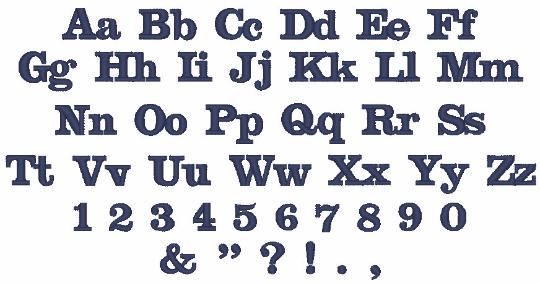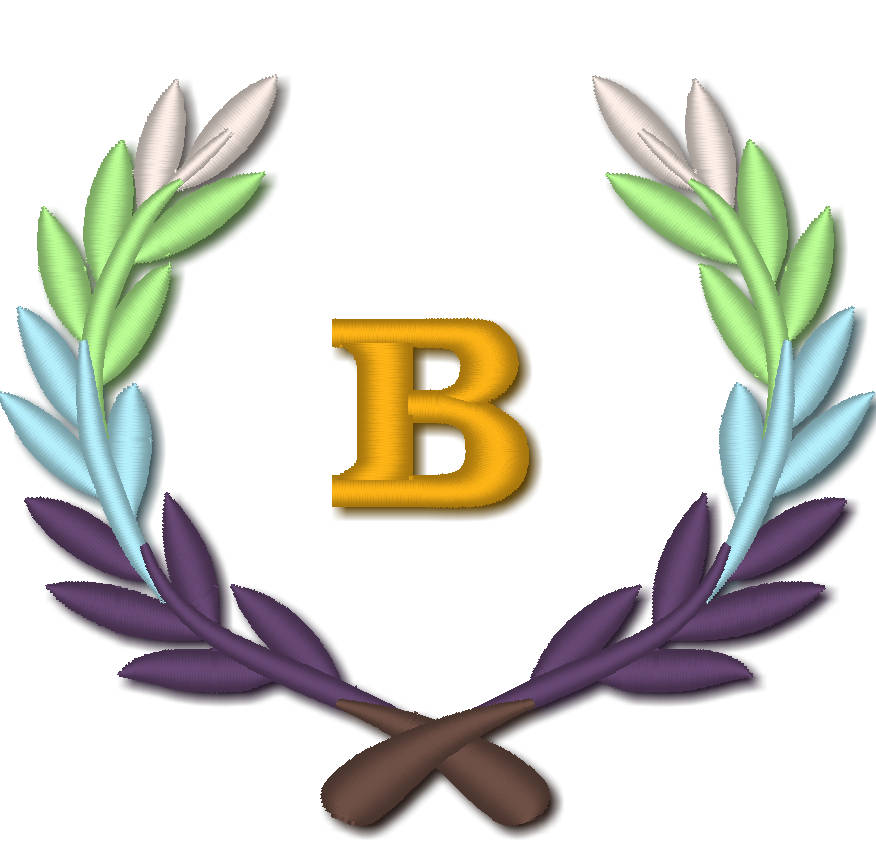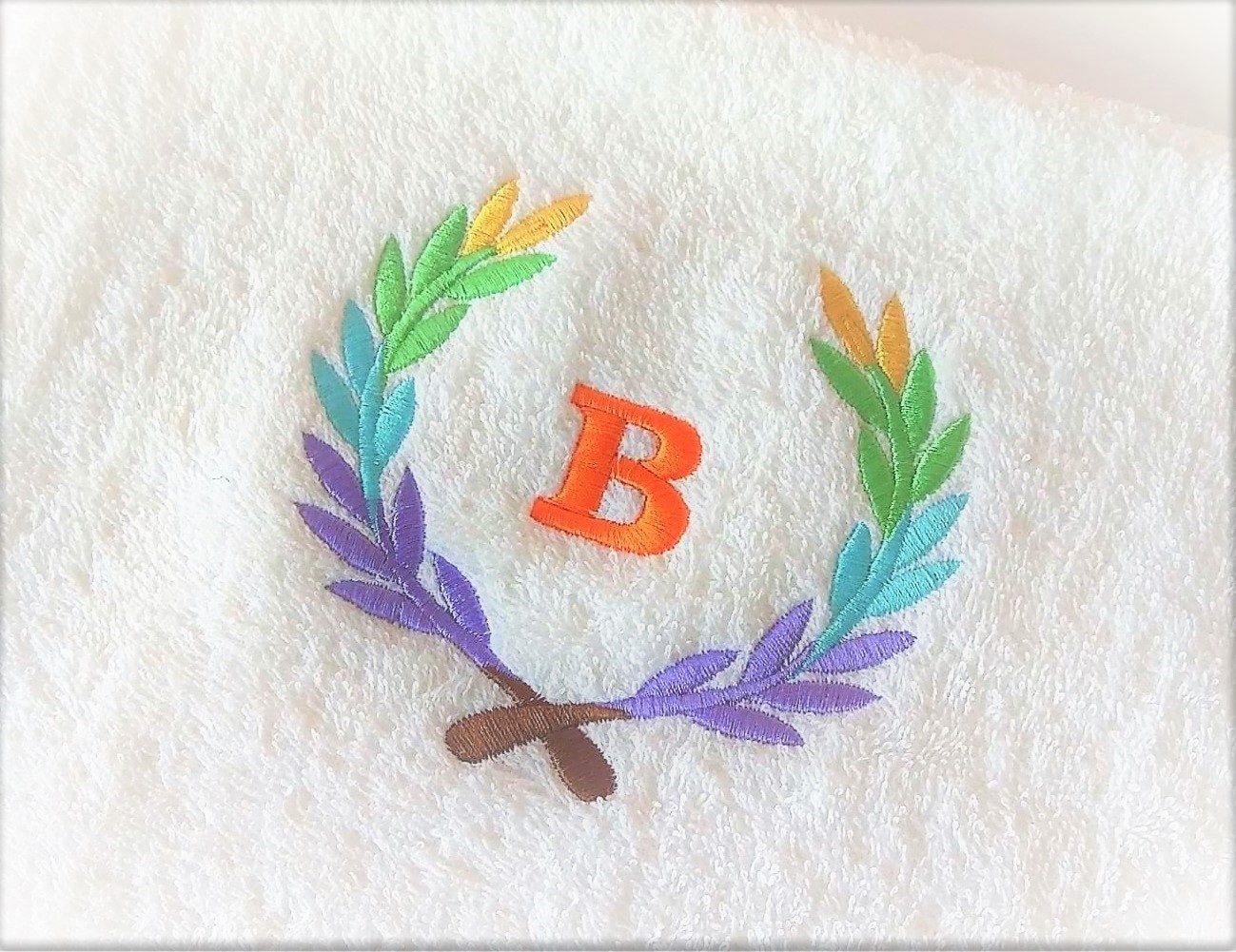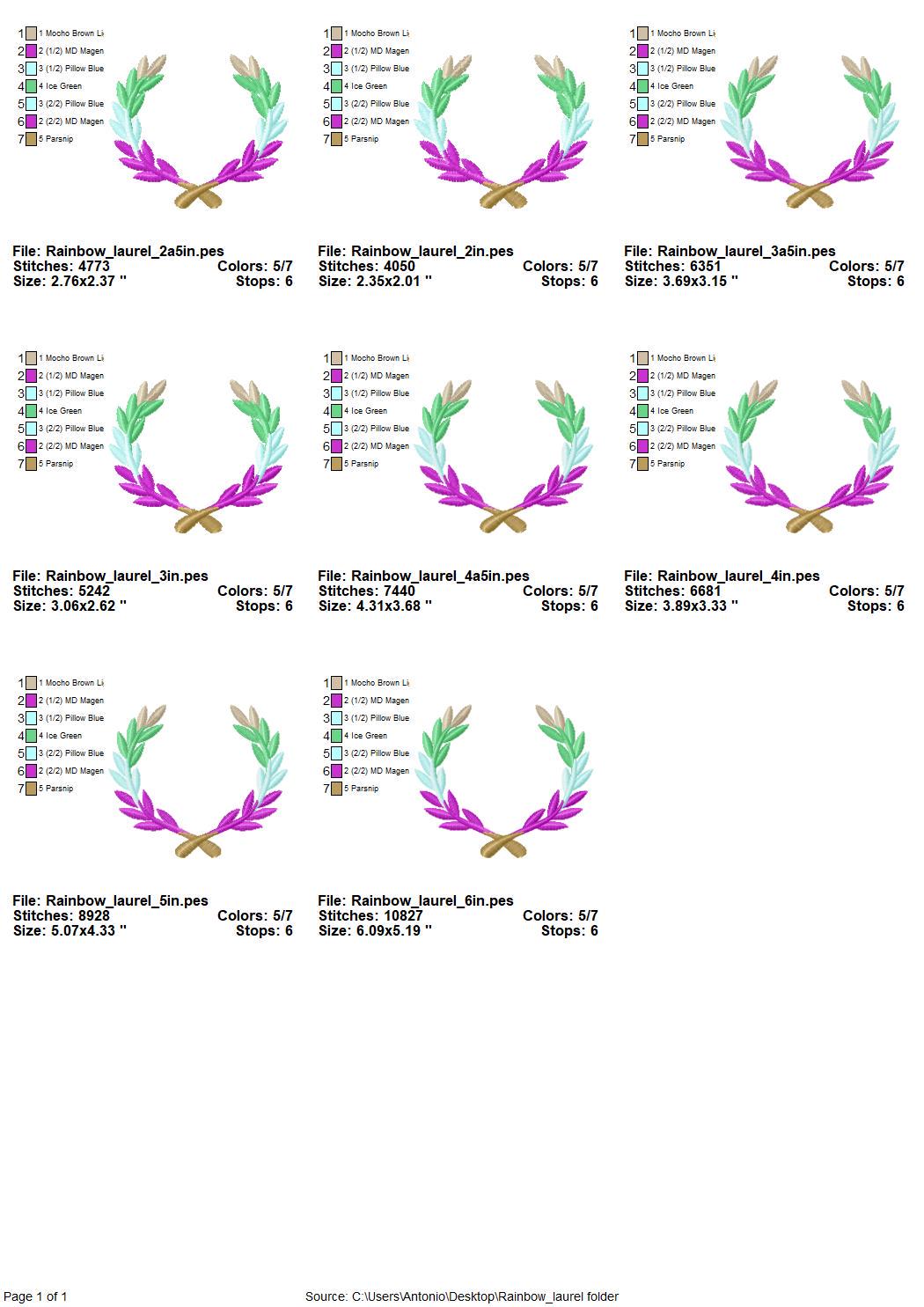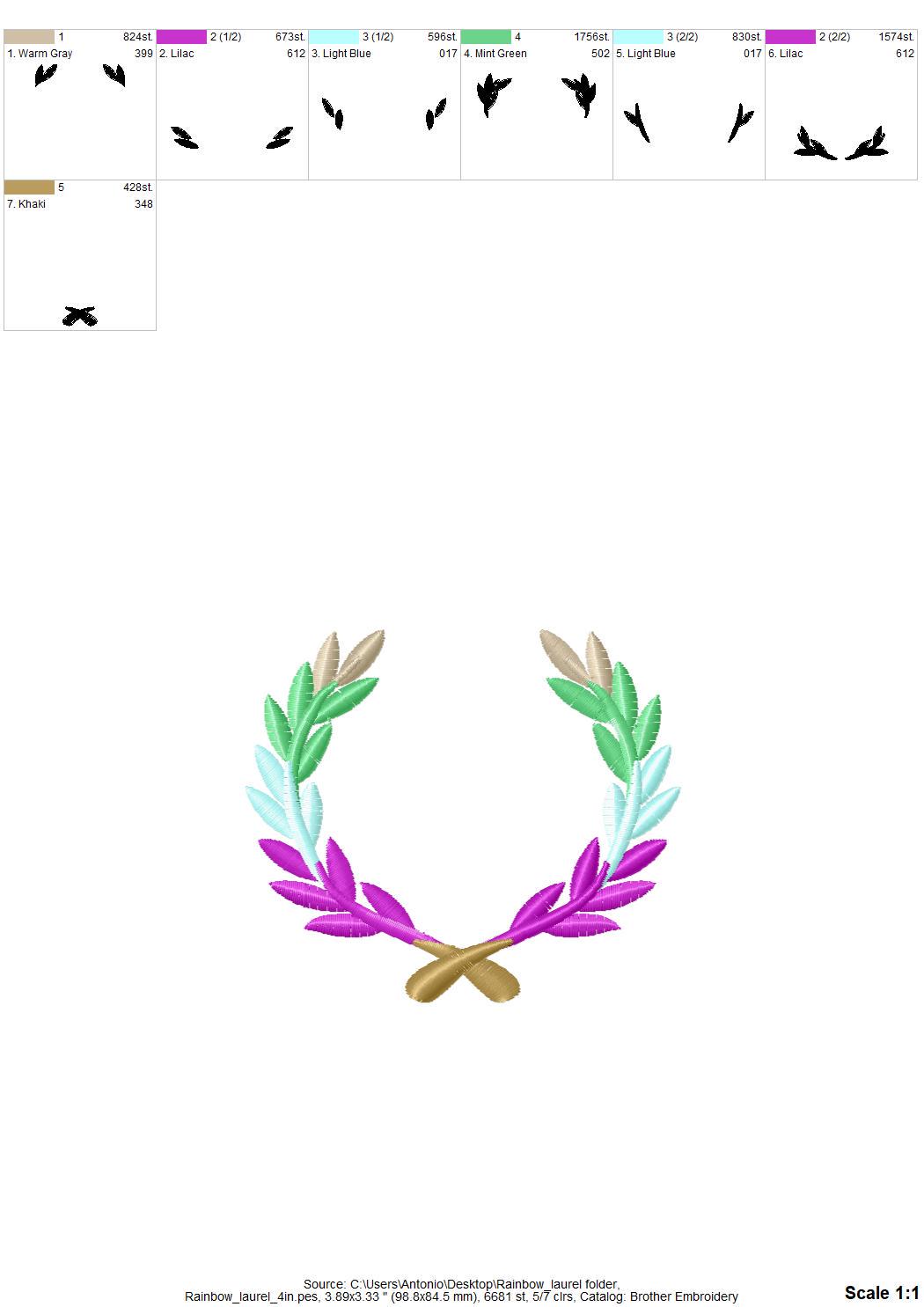
Or click to open the linkA rainbow laurel leaf wreath with a mini font for circle monograms, names and initials on kids' shirts, pillows and gifts.
The laurel wreath comes in eight sizes: 2, 2.5, 3, 3.5, 4, 4.5, 5 and 6 inches. The mini font has uppercase and lowercase letters, numbers 0-9 and a few symbols, in five sizes: 0.4, 0.6, 0.8, 1 and 1.2 inches.